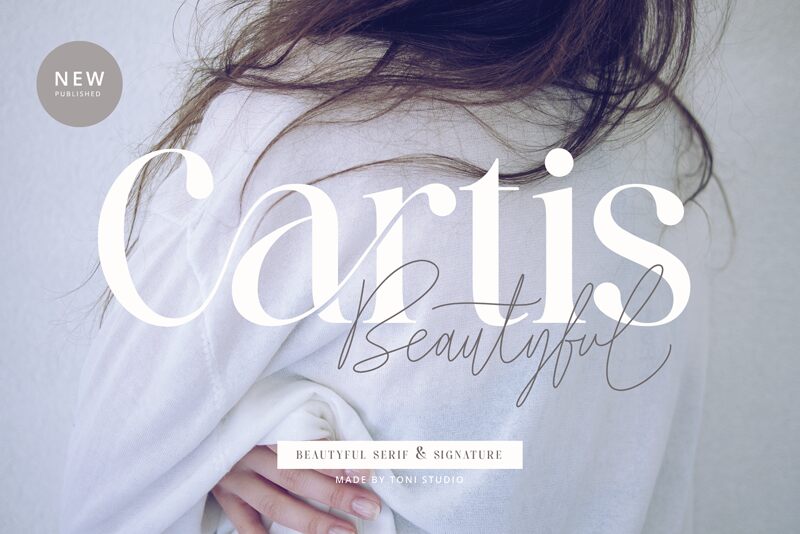
Cartis Beautyful Script
Cartis Beautyful Script, designed by Toni Studio, is a handwritten font with a thin weight. It's perfect for projects that require a personal touch, such as greeting cards, invitations, logos and flyers.